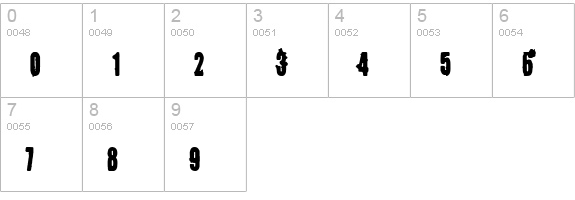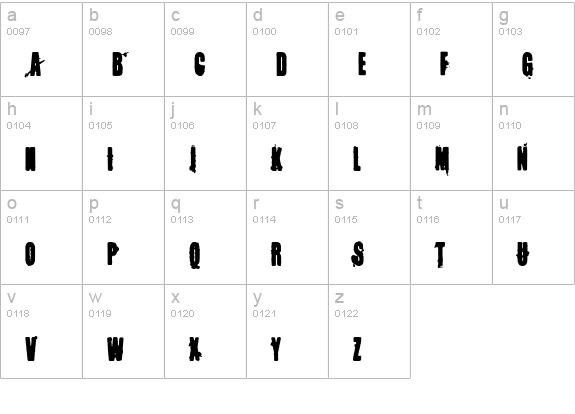
Memory Lapses Font Details
Introducing Memory Lapses font, a whimsical and playful typeface that captures the essence of nostalgic memories and dreamy reveries. With its charmingly irregular letterforms and unique design elements, this font is perfect for adding a touch of whimsy to your projects. Memory Lapses font is the perfect choice for creating eye-catching headlines, branding materials, invitations, and more. Its versatile style allows for both playful and elegant designs, making it a must-have addition to your font collection. Best of all, Memory Lapses font is available for free download at FontsMarket.com. Simply visit the website to get your hands on this delightful typeface and start creating stunning designs today. Don't miss out on the opportunity to add a touch of magic to your projects with Memory Lapses font!